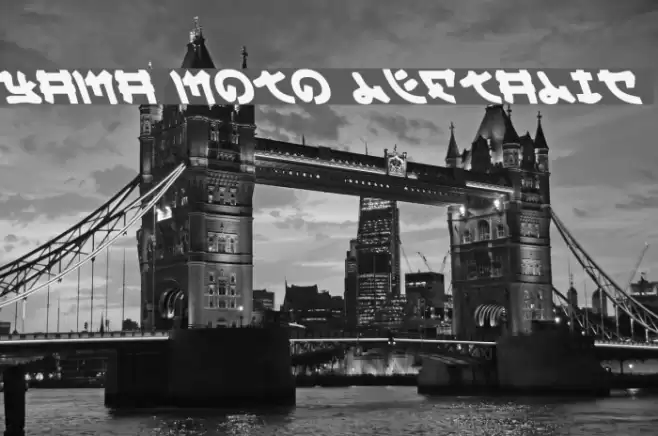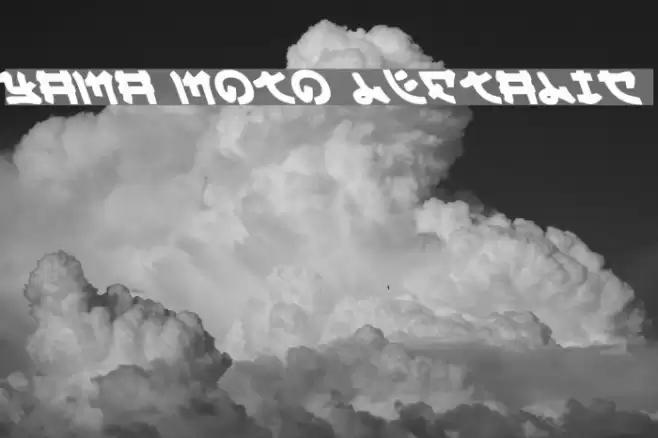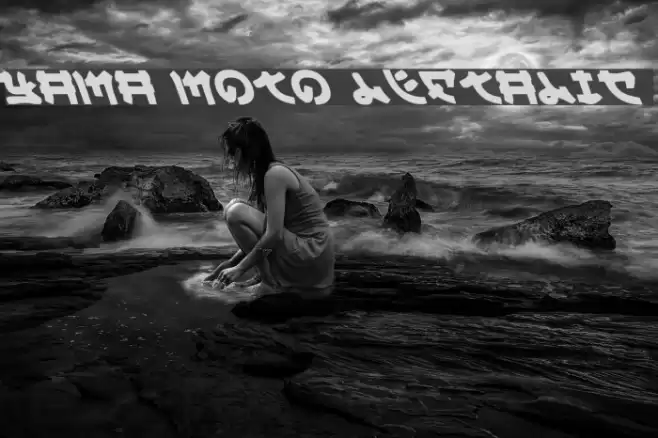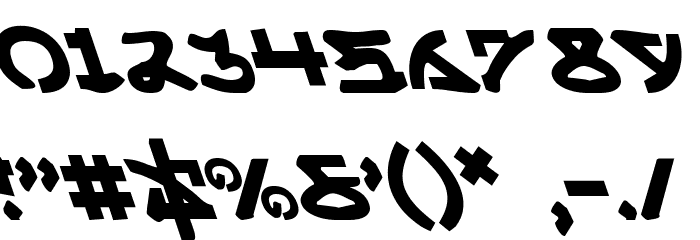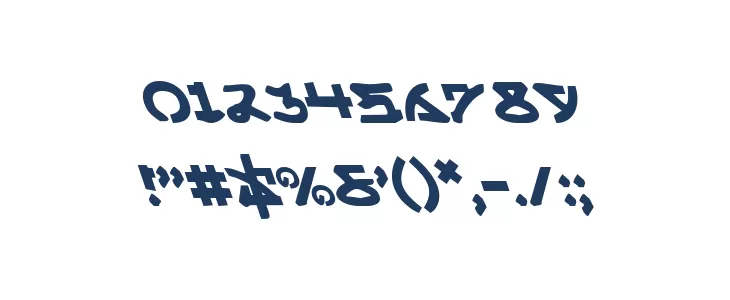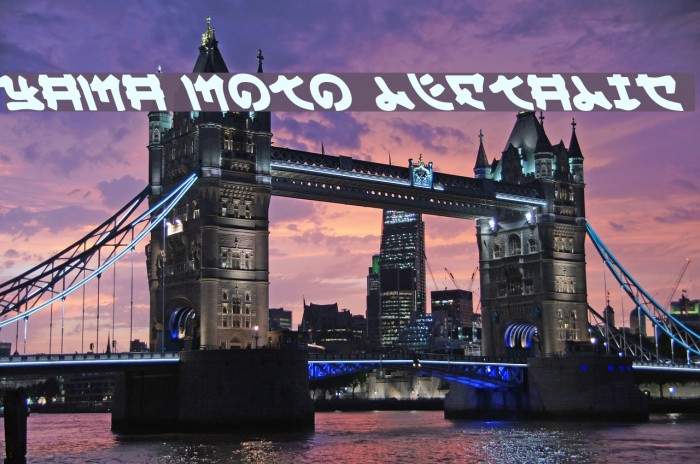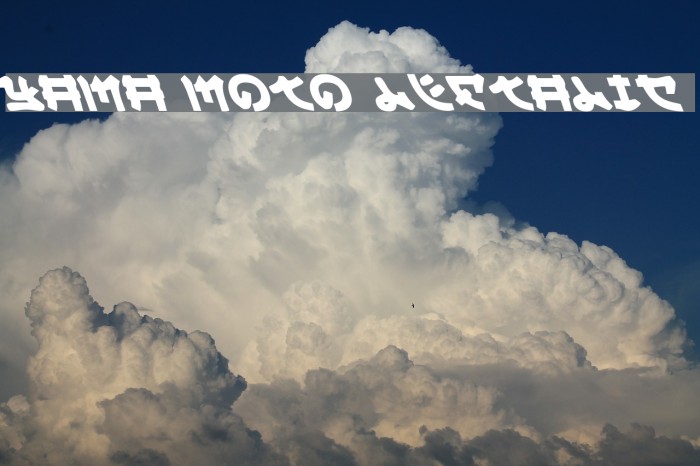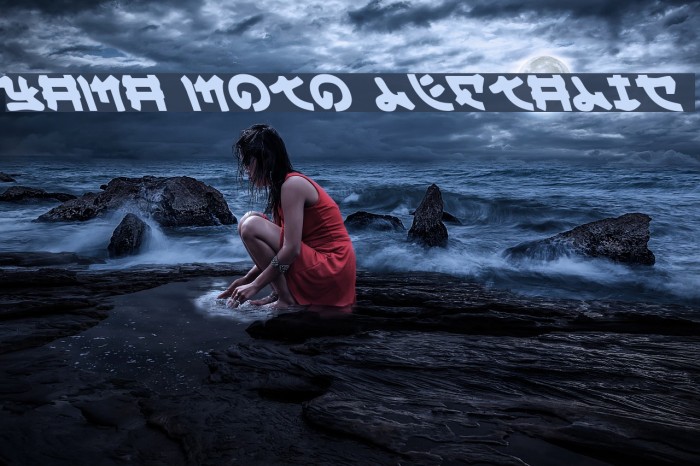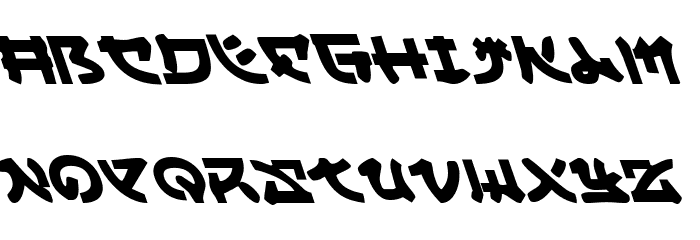
Yama Moto Leftalic Font
Yama Moto Leftalic Description
This font features a bold and dynamic design with a futuristic and edgy aesthetic. The characters are uniquely stylized with sharp angles and geometric shapes, giving it a distinct and modern look. The uppercase and lowercase letters maintain a consistent style, with each character exhibiting a sense of movement and energy. The numbers and special characters are equally bold, complementing the overall design. This font is ideal for projects that require a strong visual impact and a contemporary feel.
A bold, futuristic font with sharp angles and geometric shapes from Asian fonts.